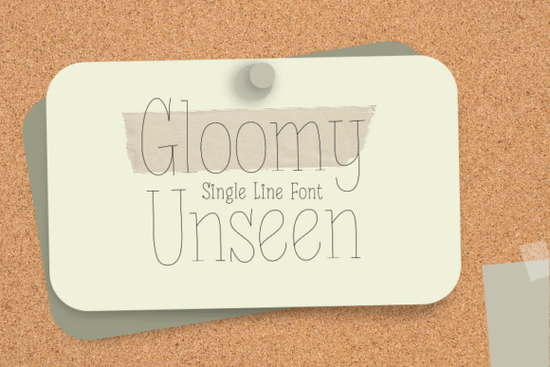
If you've ever tried writing with a Cricut pen and wished the font looked more natural and relaxed, Gloomy Unseen might be exactly what you need. It's a casual single-line font built specifically for Cricut's Pen function, which means it's optimized to draw cleanly without double lines or weird overlaps. Whether you're making greeting cards, labels, or small craft projects, this font keeps things simple and stylish.
What Is a Single-Line Font and Why Does It Matter for Cricut?
A single-line font sometimes called a draw font or pen font is designed so your Cricut machine traces each letter in one continuous stroke. Regular fonts outline each letter, which means the machine draws the inside and outside of every character. That takes longer and can look thick or messy with a pen.
With a single-line font like Gloomy Unseen, your Cricut pen glides through each word smoothly. The result is cleaner, faster, and closer to actual handwriting. This matters a lot when you're working on detailed projects where every stroke counts.
What Can I Use Gloomy Unseen For?
This font works well across a range of small creative projects. Here are a few ideas that crafters and small business owners commonly use it for:
- Greeting cards birthday, thank you, holiday, or just-because cards
- Gift tags personalized tags with names or short messages
- Envelope addressing clean, casual writing for invitations or mail
- Scrapbook journaling handwritten-style captions and titles
- Small business packaging thank-you notes, branded stickers, or inserts
- Planner decoration headers, quotes, and labels for personal planners
Because it has a neat, casual feel, it doesn't look too formal or too sloppy. That middle ground makes it flexible enough for both everyday crafts and occasional special projects.
How Is It Different from Other Script Fonts?
There are plenty of script fonts out there, but most of them aren't designed for Cricut's pen tool. Fonts like Partly Notes and Family Farmhouse are beautiful options for cut-based projects, but when you switch to pen mode, they may not produce the same clean results.
Gloomy Unseen is built with the pen stroke in mind from the start. That means no extra thickness, no double tracing, and no surprises once your project starts drawing. If you've ever been frustrated by a font that looked great on screen but turned out messy on paper, you'll appreciate this.
For projects that need something a little more structured, Straight Font offers a cleaner, more uniform look. And if you want something with a bit more flair, Sign Rathi or Charlie Script could work well for decorative pieces. But for casual, everyday writing with a pen, Gloomy Unseen hits a sweet spot.
Is This Font Good for Beginners?
Does It Work with Different Pen Types?
Gloomy Unseen performs well with standard Cricut pens, fine-point pens, and most compatible third-party gel or fine-line pens. Because it's a single-line font, it doesn't rely on thick strokes to look good, which means thinner pens actually bring out its casual style even more.
That said, pen quality and paper texture still matter. Smooth cardstock or Bristol board tends to give the cleanest results with any pen font.
Who Will Get the Most Out of This Font?
This font is a solid pick for:
- Crafters who make cards, tags, and paper projects regularly
- Print-on-demand sellers who want a hand-lettered look without drawing by hand
- Small business owners adding a personal touch to packaging or thank-you notes
- Hobbyists who enjoy scrapbooking, journaling, or planner decorating
- Teachers and parents making classroom labels, awards, or activity sheets
It's not trying to be everything it's a casual, single-purpose pen font that does its job well. And sometimes that's exactly what you need.
- Adjust letter spacing if needed casual fonts sometimes benefit from a little extra room